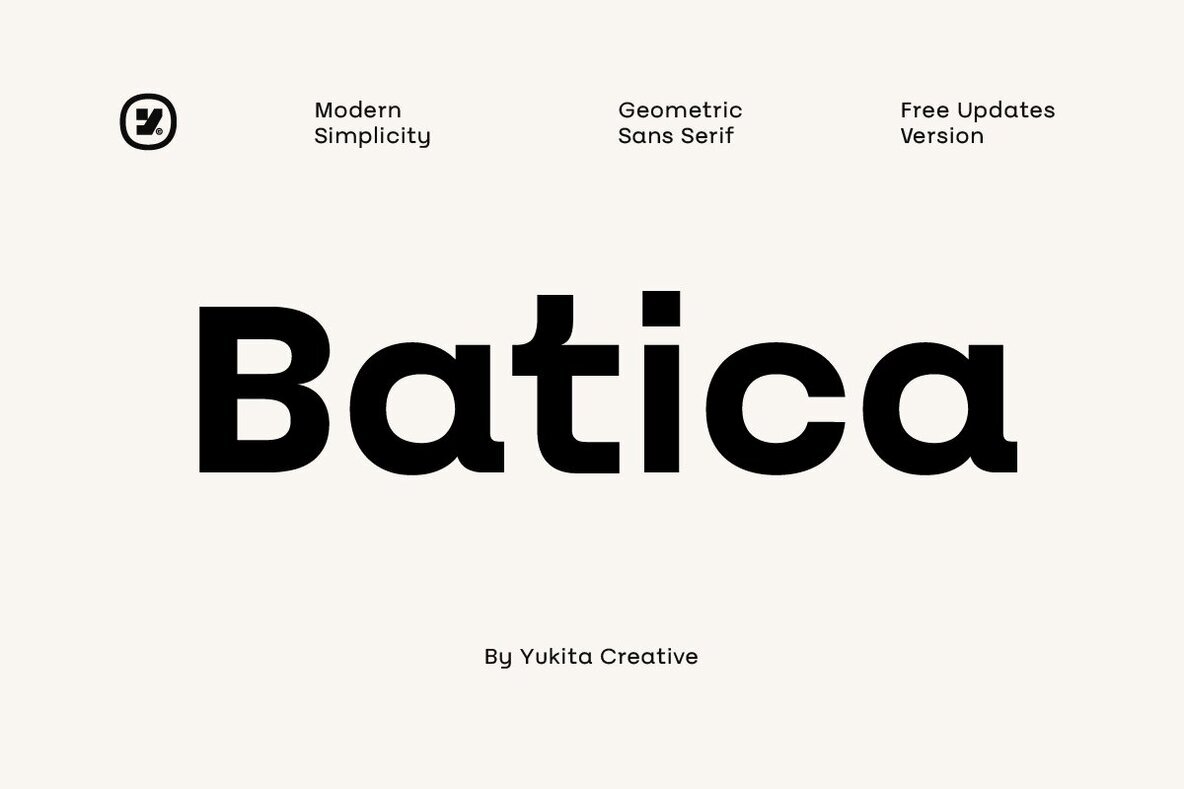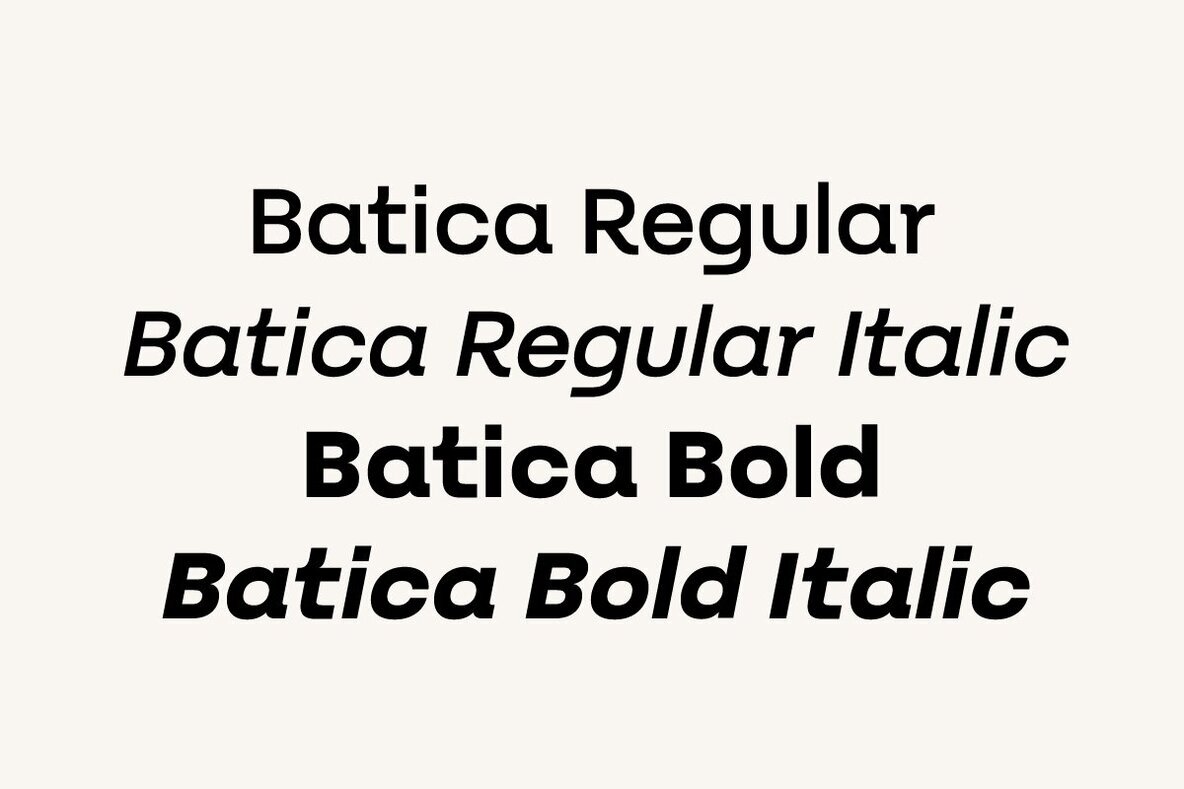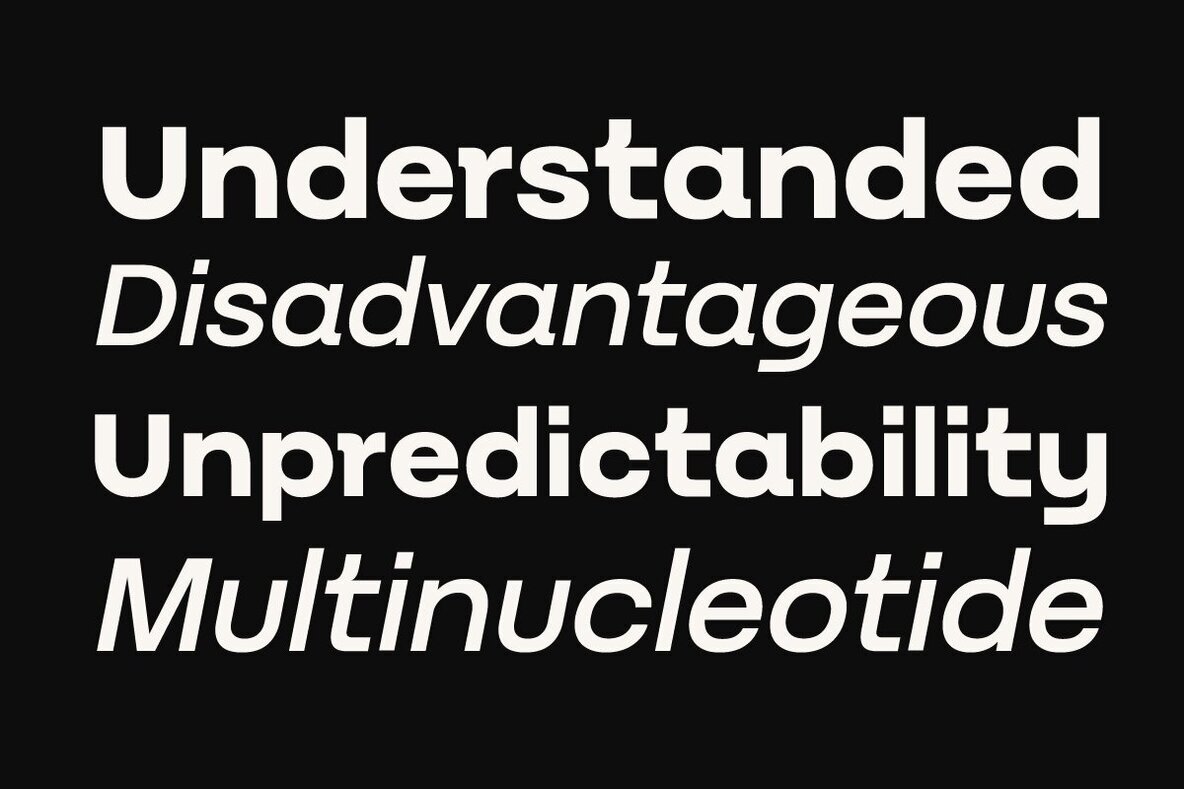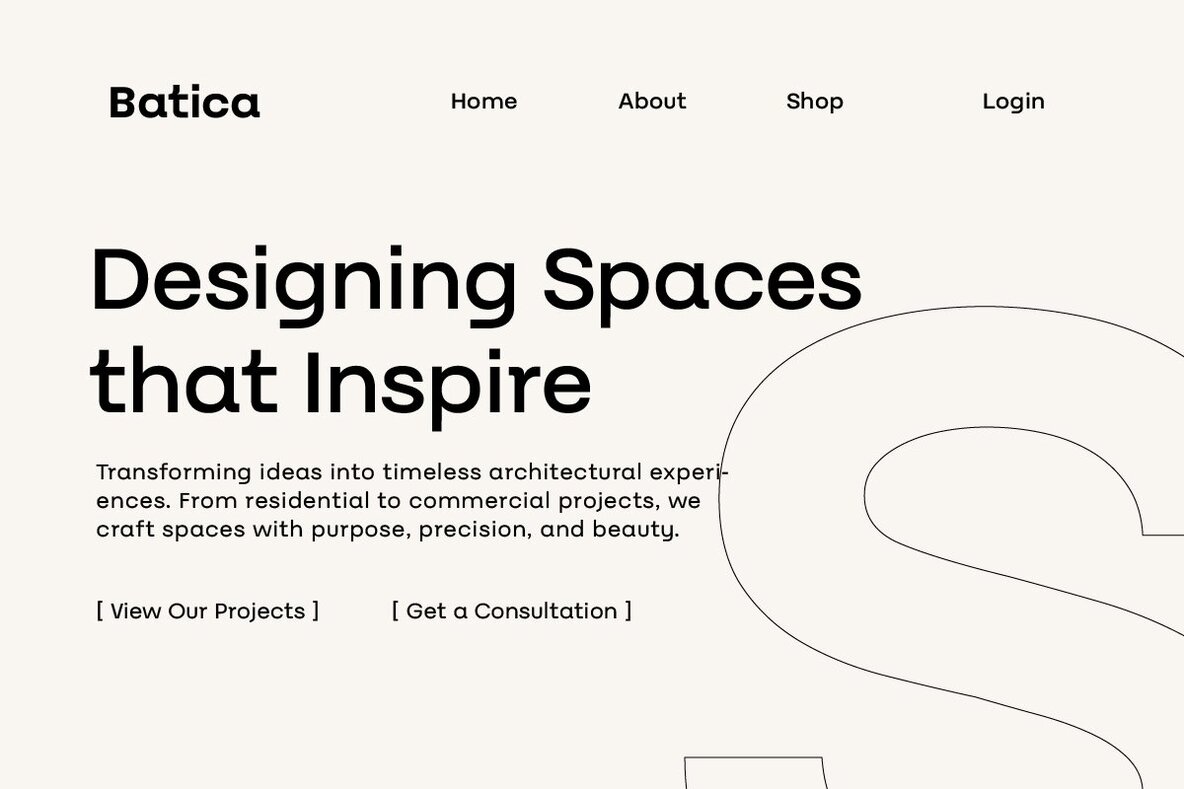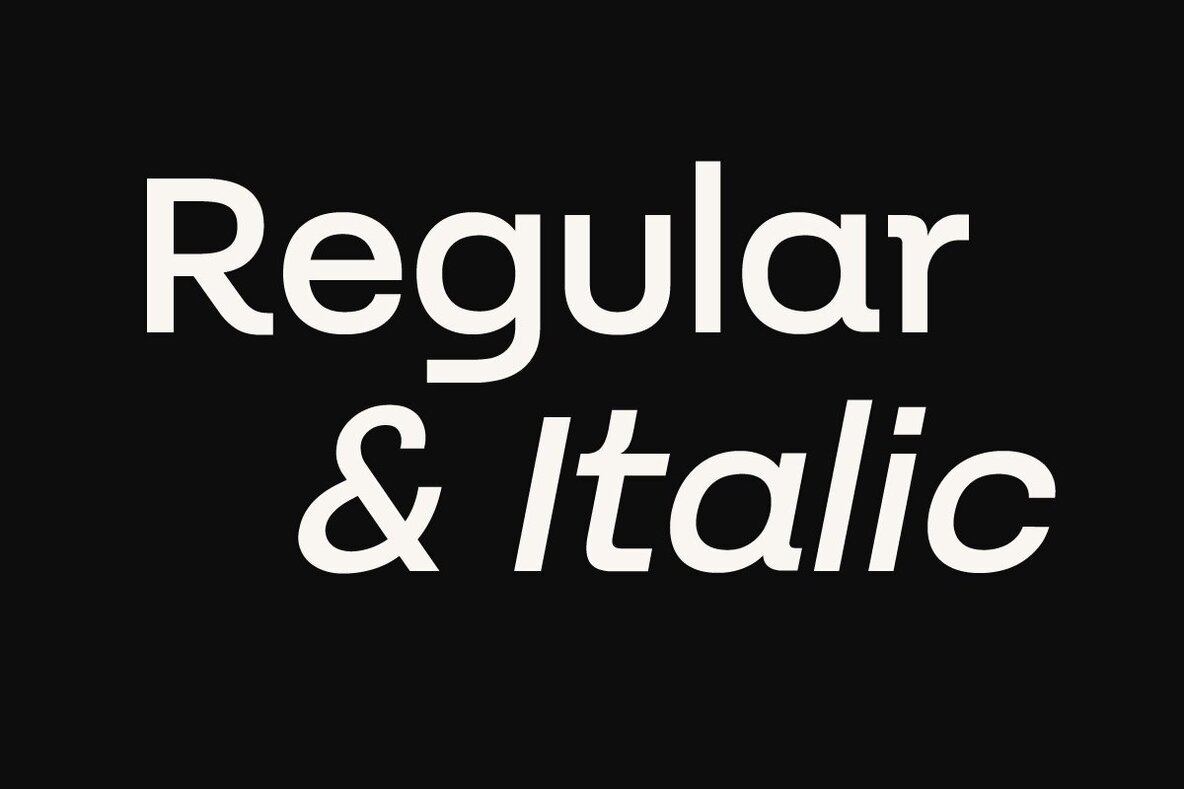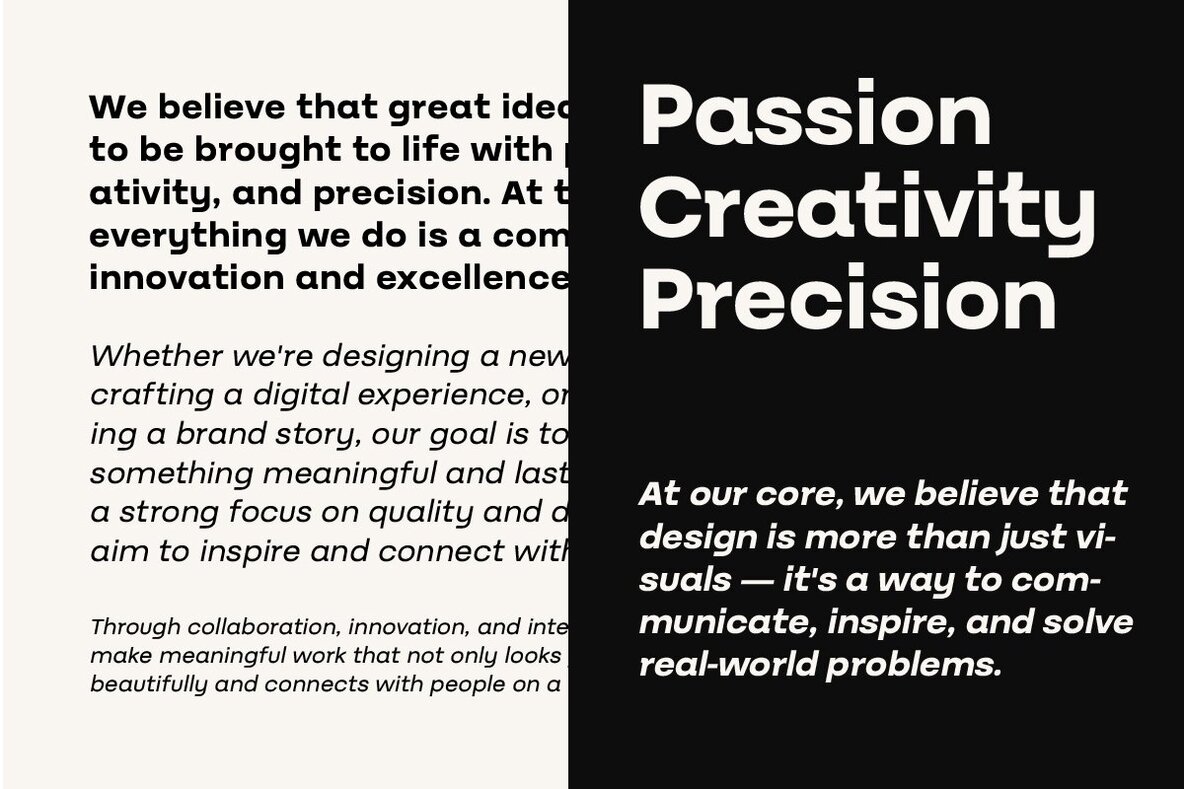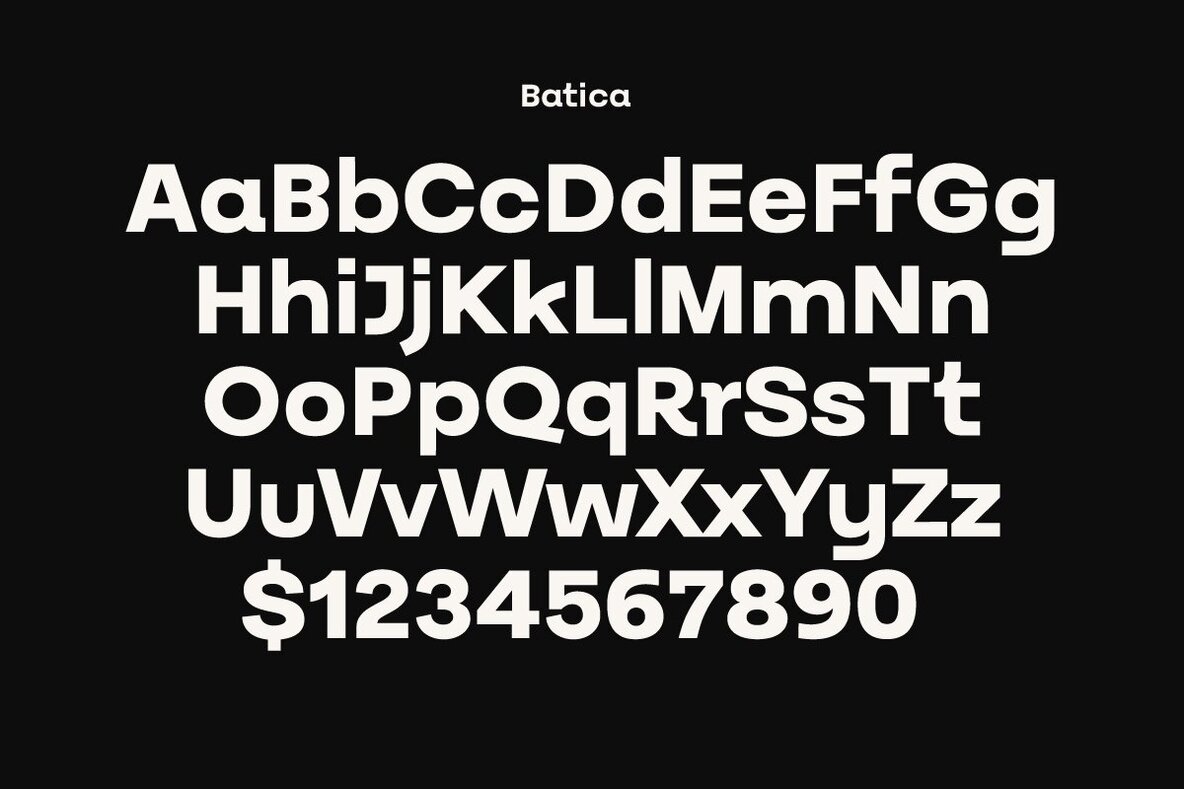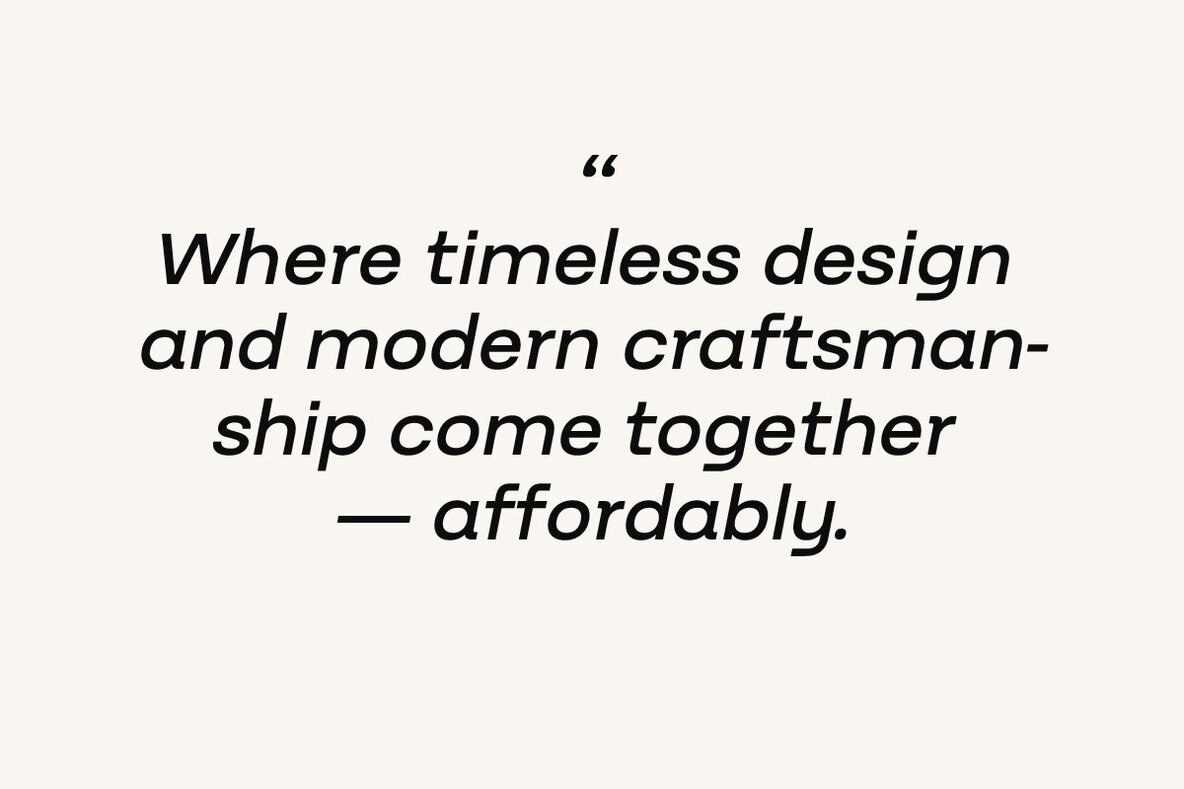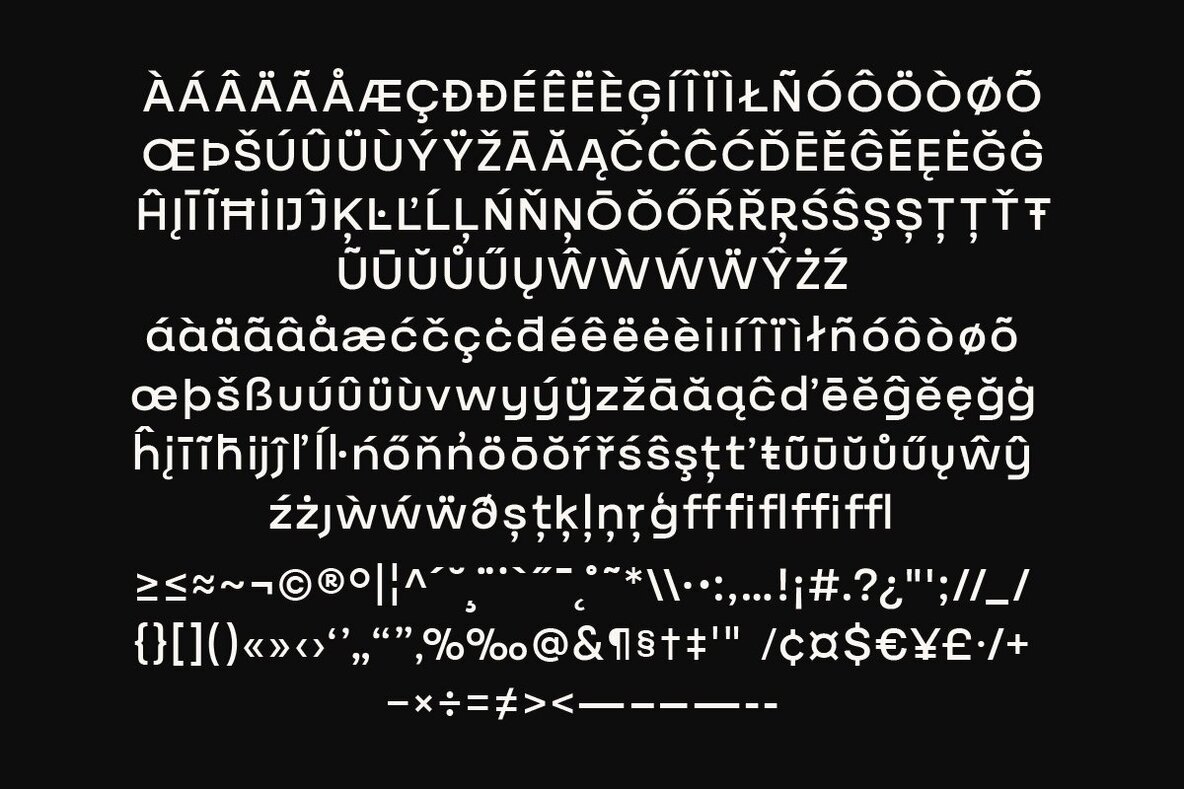
Batica Font
The Batica font family stands as a modern choice for those who appreciate the beauty of minimalism. Its geometric design is ideal for projects demanding simplicity and clarity. With four distinct styles—Regular, Italic, Bold, and Bold Italic—Batica adapts seamlessly to diverse creative needs, whether it's branding, web design, or editorial layouts. Precision is at the heart of Batica's appeal. Its minimalist construction and balanced proportions contribute to a professional look, ensuring each character meets the modern demands of typography. This font is an excellent match for both print and digital use, offering designers a versatile tool for their contemporary projects.Batica Geometric Font Family: Simple and Elegant